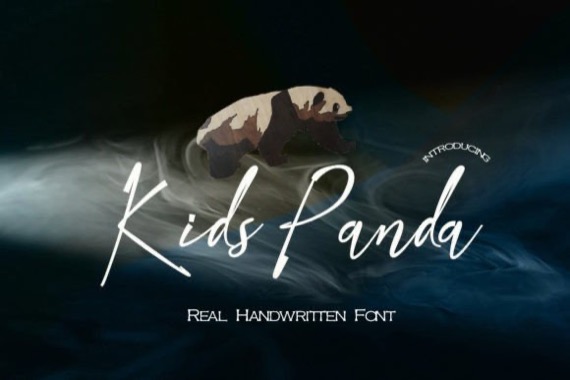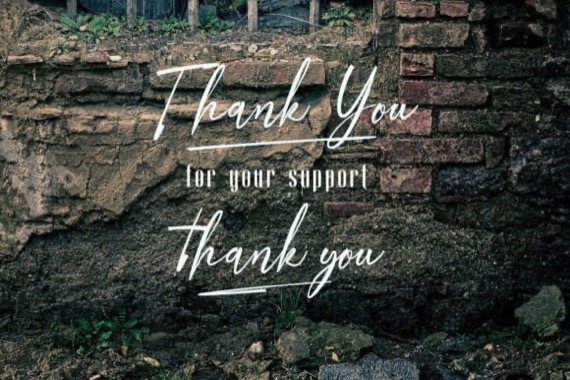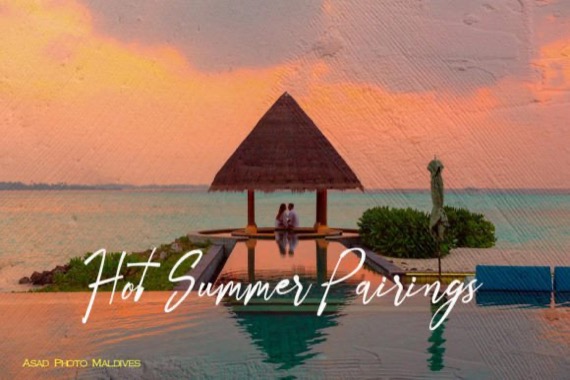
Kids Panda is a beautiful and refined handwritten script font with a classy and chic style. It can be used for logos, branding, invitations, stationery, wedding designs, social media posts, and much more! This font is PUA encoded which means you can access all of the amazing glyphs and ligatures with ease!
Kids Panda Handwritten Font